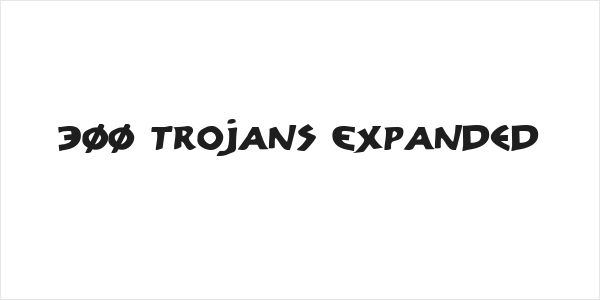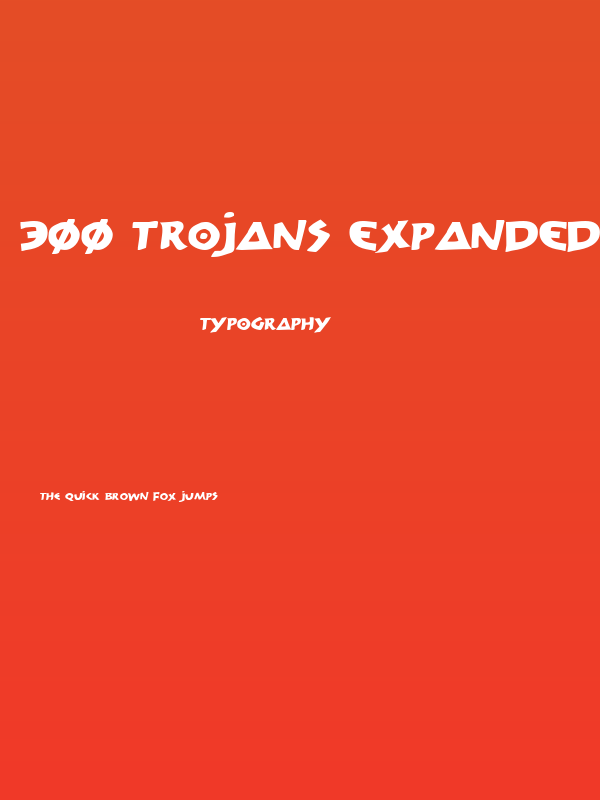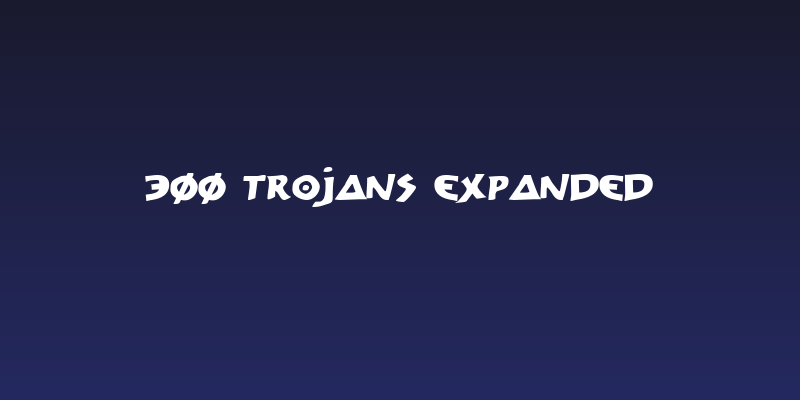
300 Trojans Expanded Font
300 Trojans Expanded Description
This font features a bold and dynamic design with sharp, angular edges and a strong presence. The characters are wide and have a distinct geometric style, reminiscent of ancient or historical themes. The uppercase and lowercase letters maintain a consistent weight, contributing to a cohesive look. Numbers and special characters follow the same stylistic approach, ensuring uniformity across all glyphs. The font's boldness and unique character shapes make it suitable for impactful and eye-catching designs.
Proposed ProjectsIdeal for movie posters, video game titles, branding for historical or fantasy themes, and any project requiring a bold, impactful typeface.